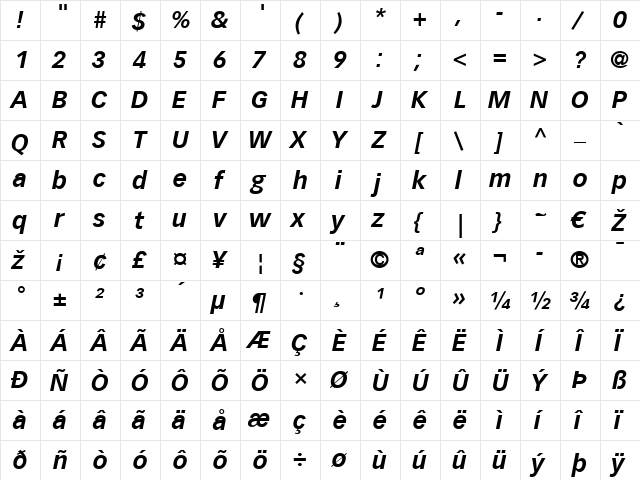
Vectora LT Light Bold Italic
Design Context for Vectora LT Light Typeface
Vectora LT Light offers clean, dependable letterforms without strong stylistic allegiance, making it a practical choice for designers who need flexibility. The slanted form adds forward momentum and visual energy. Its bold stroke weight gives it real presence on the page.
Pro Tip: Use Vectora LT Light for emphasis, pull quotes, and subheadings where its slanted energy can add rhythm to the layout.